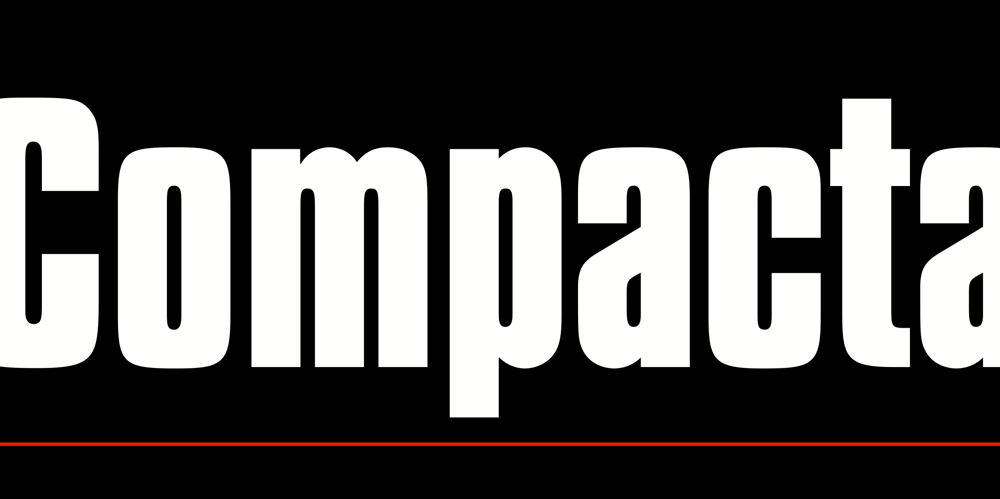
Compacta MT Font Family was designed by Fred Lambert and published by Monotype. Compacta MT contains 1 styles and family package options. Compacta is the work of Fred Lambert and is reminiscent of the extremely narrow, sans serif stencilled fonts of the 1920s, then intended as titles or headlines for magazines and posters. The characters of all cuts are narrow and the space between letters is very small. The white spaces between strokes are perceived almost as only small white stripes and dots which stand out from the black bands of the lines of text. Compacta is not meant for longer texts but is impressive in titles and headlines.